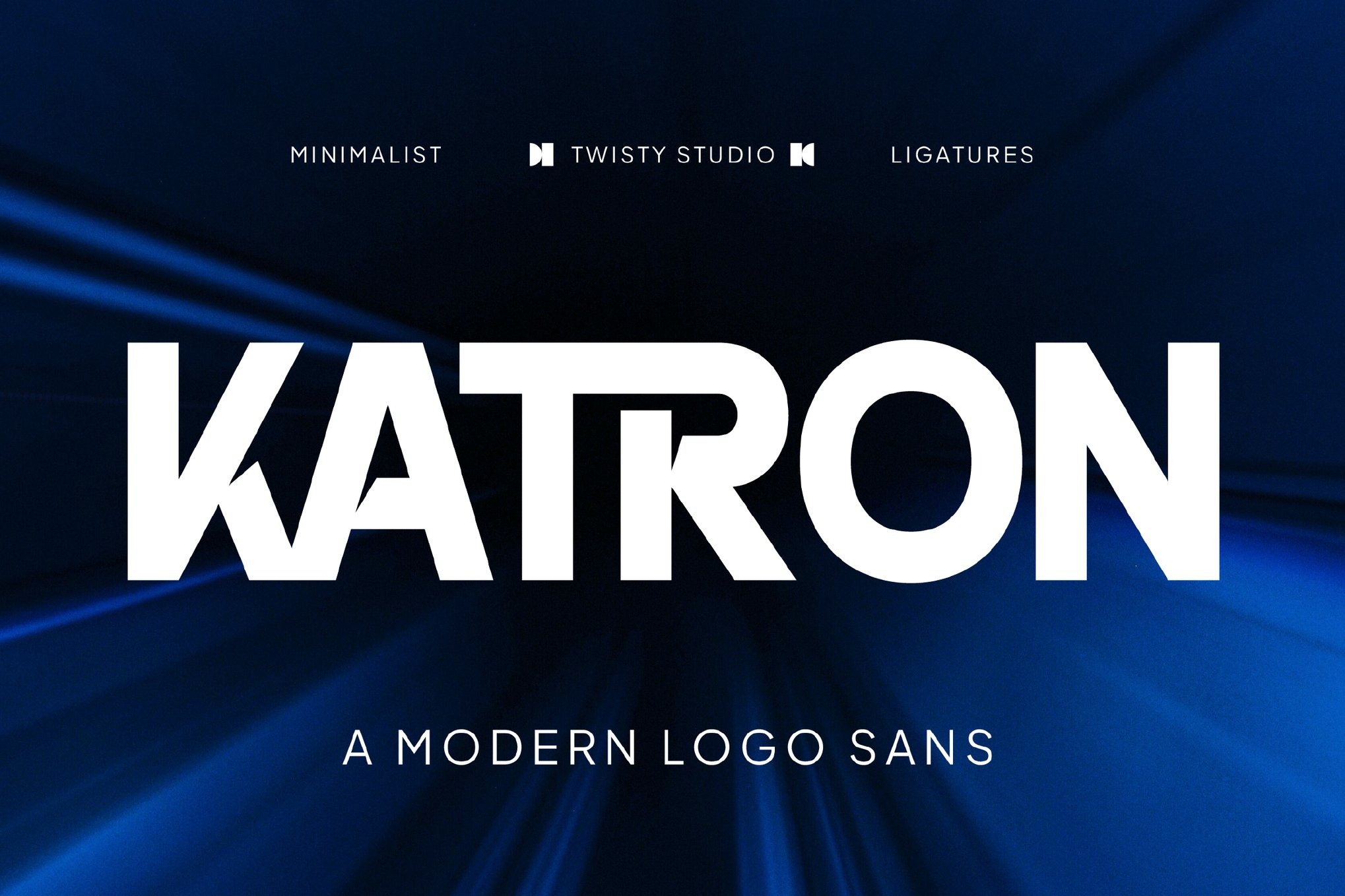
Katron Font
Katron Font is a premium-quality font developed to enhance your work with a polished, modern, and visually elevated look. Katron is a modern logo sans typeface designed to deliver clean aesthetics, strong readability, and professional visual identity. Featuring sleek letterforms, balanced proportions, and a minimalist modern structure, Katron creates a refined appearance that feels contemporary, versatile, and timeless. Its clean sans serif style makes it highly suitable for logo creation and branding projects that require clarity and sophistication. Whether for startups, corporate identities, or digital brands, Katron brings a polished and modern typographic presence.
Features: Uppercase & Lowercase Alternates & Ligatures Numerals & Punctuation Multilingual Support
Who Should Use Katron? Katron is ideal for designers, agencies, startups, and modern businesses looking for a sleek sans serif font with a strong branding personality. It’s especially suited for projects that require minimalist typography with professional and modern appeal.
Suitable For: Logo and branding design Corporate and startup identity Website and UI design Editorial and magazine layouts Packaging and product labels Business presentations Social media graphics Modern minimalist typography